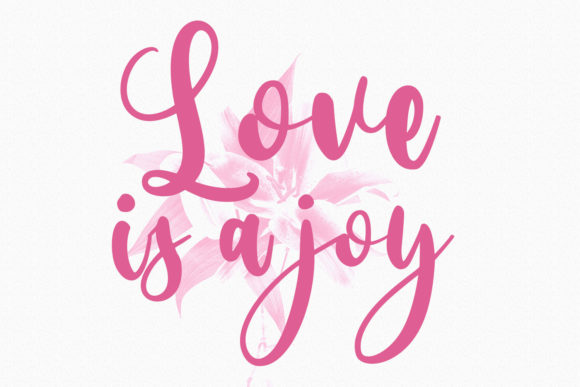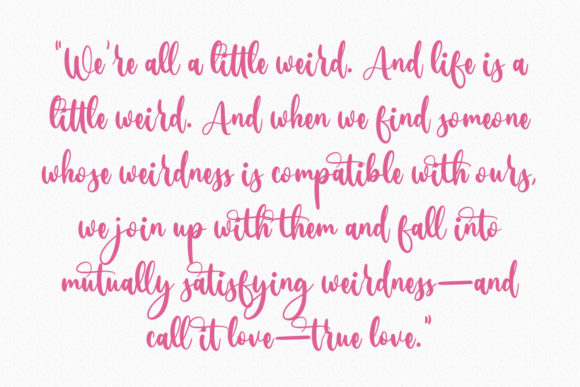
Buffyboats Font
db-ku.com - Script & Handwritten -- Buffyboats is a fancy handwritten font. It features bold contrast strokes, fun characters with a bit of ligatures and alternates. It is perfect for product packaging, branding project, magazine covers, social media, wedding, or just used to express words above the background.